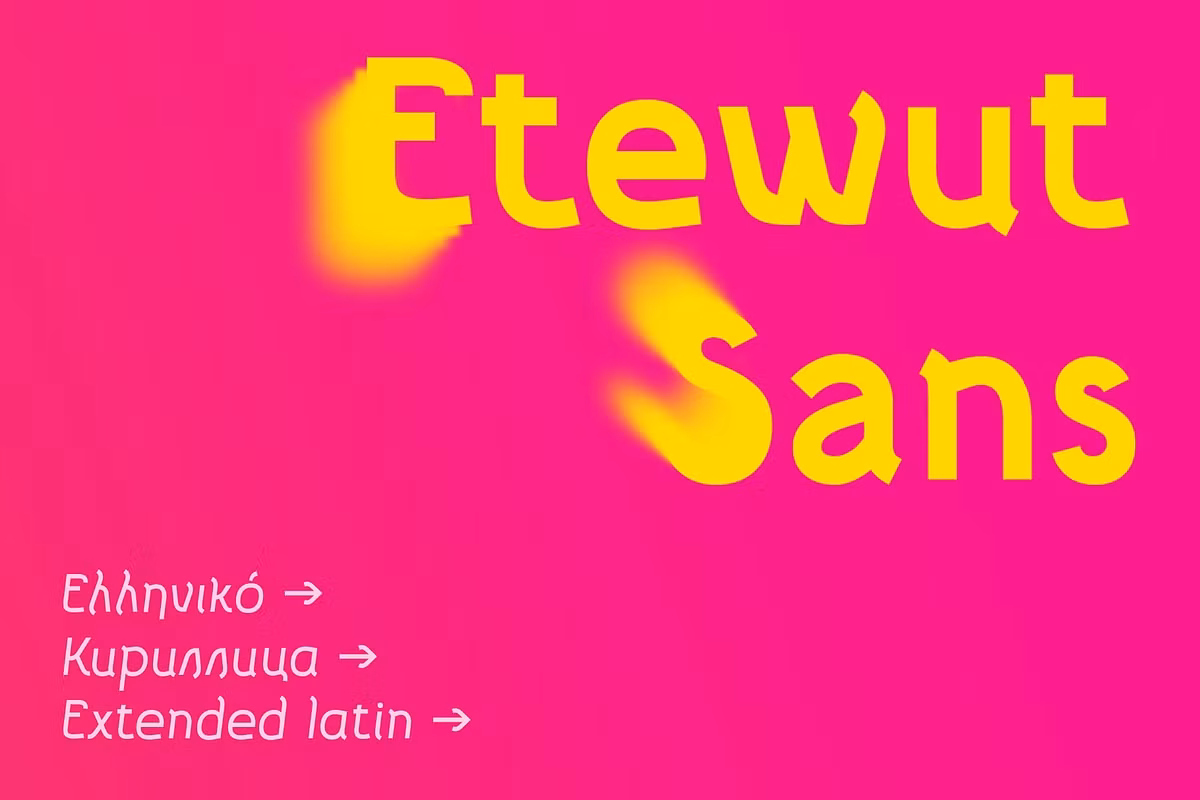
Please note, to use this font for commercial purposes, you must purchase the full version. Etewut Sans is a sleek and modern sans-serif font that offers a clean, minimalist design perfect for contemporary projects. With its smooth, balanced letterforms, this font is ideal for logos, branding, websites, and editorial designs. Whether you're working on a corporate identity, a digital platform, or a trendy promotional campaign, Etewut Sans adds a professional touch to your designs. Test it out and enjoy free download access for personal use. Experience the modern elegance of Etewut Sans Font Free Download before purchasing the commercial license. Enhance your designs with the crisp, sophisticated style of Etewut Sans.